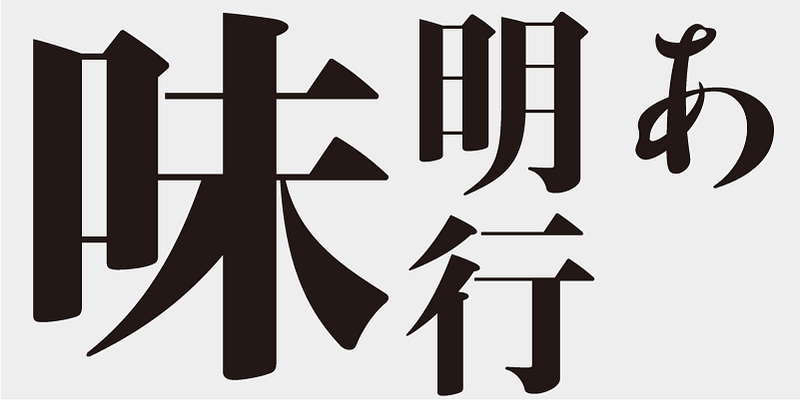
AB Ajimin Modern Gyo/EB Font Free Download is a luxurious and expressive extra bold serif typeface that harmoniously blends classical Japanese Mincho aesthetics with a modern, editorial edge. The Gyo/EB style is defined by its elegant high-contrast strokes, sharp serifs, and sophisticated balance—making it ideal for book covers, magazine titles, cultural branding, and designs that aim to project timeless elegance with a contemporary voice.
Crafted with precision, AB Ajimin Modern Gyo/EB delivers a poised yet dynamic presence across both Japanese and Latin scripts. Its expressive form and refined detail make it a standout choice for bilingual or global design projects that require both beauty and typographic integrity.